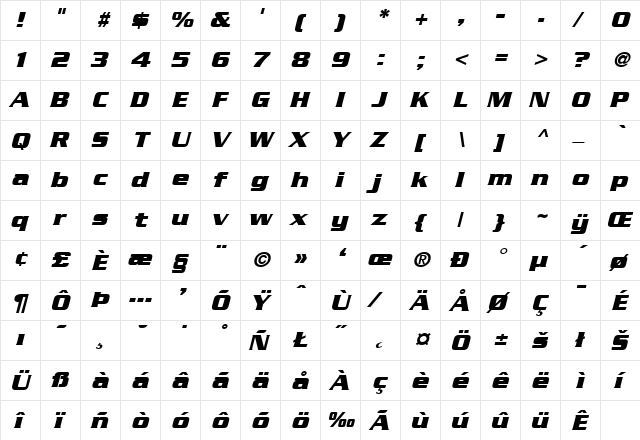
SerpentineBoldOblique Regular
Design Context for SerpentineBoldOblique Typeface
SerpentineBoldOblique is a composed and adaptable typeface that performs quietly and consistently across a wide range of design contexts. The dynamic lean of this cut emphasises speed and emphasis in any layout. Its bold stroke weight gives it real presence on the page.
Pro Tip: Use SerpentineBoldOblique for emphasis, pull quotes, and subheadings where its slanted energy can add rhythm to the layout.